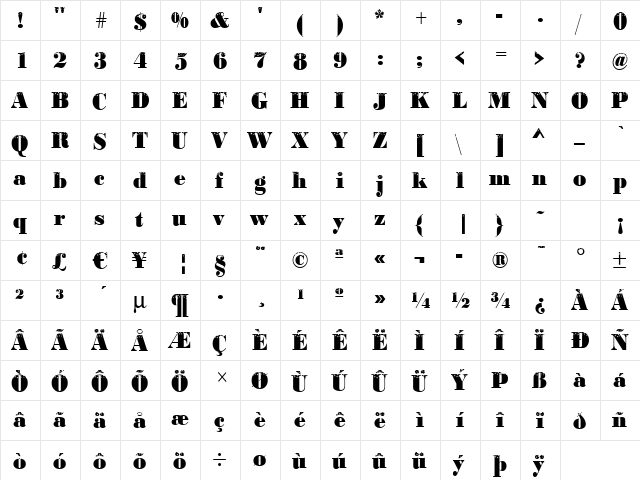
BodoniStars3 Regular Font Preview
BodoniStars3 Regular
Design Context for BodoniStars3 Typeface
BodoniStars3 takes a measured approach to typography — its balanced proportions and neutral character make it a reliable workhorse for both digital and print work.
Pro Tip: Use BodoniStars3 in both headline and body roles to test its range before committing to a single application.